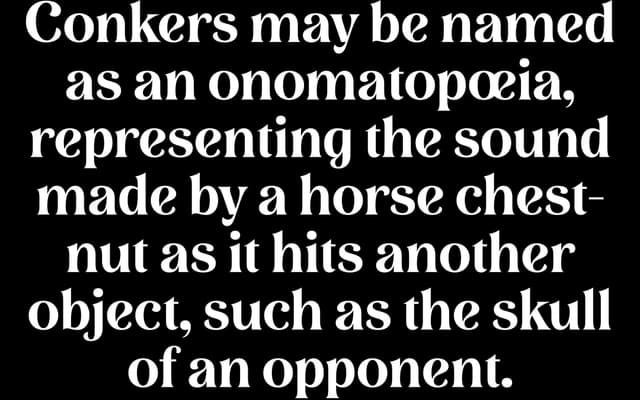
A serif born from crossing two existing Beasts of England typefaces, New Forest and Room 205, with broad Latin Extended language support across 485 glyphs.
Lovechild takes its name and concept from a deliberate hybridisation of New Forest and Room 205, two typefaces from the same foundry. With 485 glyphs including a wide range of foreign characters, it covers dozens of languages. The foundry's tone is warmly literary, positioning the face for text work with a nostalgic, personal flavour.
Described as a cross between two other Beasts of England typefaces, New Forest and Room 205, suggesting a serif with transitional characteristics. The page specimen and romantic, literary tone reinforce a classical serif disposition.